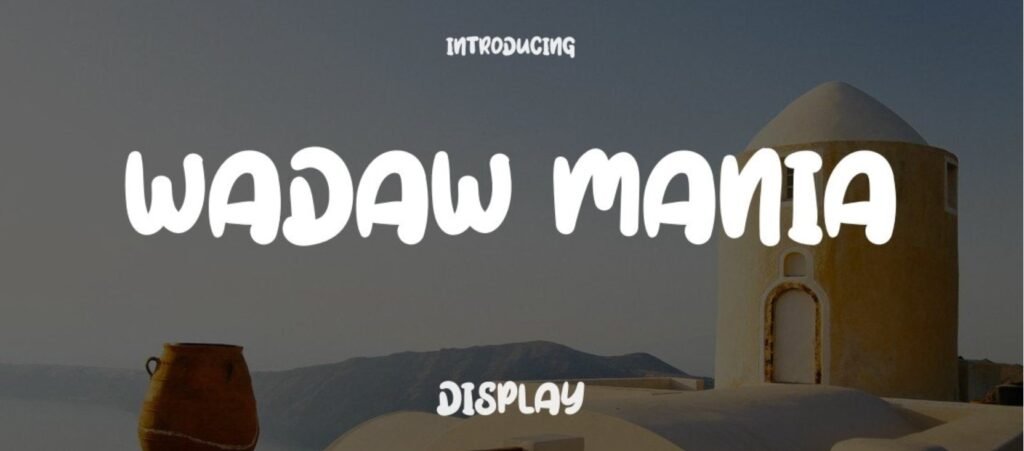
Wadaw Mania Font
Wadaw Mania Font Family is a delighful and joyous font type designed by Eknoji Studio. This font family is famous among designers for its animated style as it assists in achieving a playful and energetic vibe for their work.
What is the Wadaw Mania Font Family?
The Wadaw Mania Font Family comprises two distinct styles:​
• Wadaw Mania Regular: A bold and playful typeface with rounded edges.
• Wadaw Mania Bubble: Another more bubbly version that increases the capricious impression.​
This font is created by Eknoji Studio where they design with the purpose of looking fun by incorporating comic books and playful illustrations. This bold font is suitable for design projects which aim to convey fun and creativity.
Key Features of the Wadaw Mania Font Family
• Styles Included: Regular and Bubble variants.
• Language Support: Supports 37 languages, including English, French, Spanish, and German.
• Glyphs: Includes a full set of uppercase and lowercase letters, numbers, punctuation, and special characters.
• Design Appeal: Features bold, rounded characters with a lively, dynamic appearance, making them stand out with a fun and energetic vibe.
Uses and Applications of the Wadaw Mania Font Family
The Wadaw Mania Font Family is versatile and can be used in various design scenarios:​
• Branding: Ideal for brands targeting a younger audience or those in the entertainment industry.
• Posters and Flyers: Perfect for event promotions, especially those related to children or family activities.
• Websites: Adds a playful touch to websites, particularly those focused on games, cartoons, or creative arts.
• Logos: Suitable for logos that require a fun and approachable look.
Social Media Graphics: Enhances the visual appeal of posts, stories, and advertisements.​
Conclusion:Wadaw Mania Font